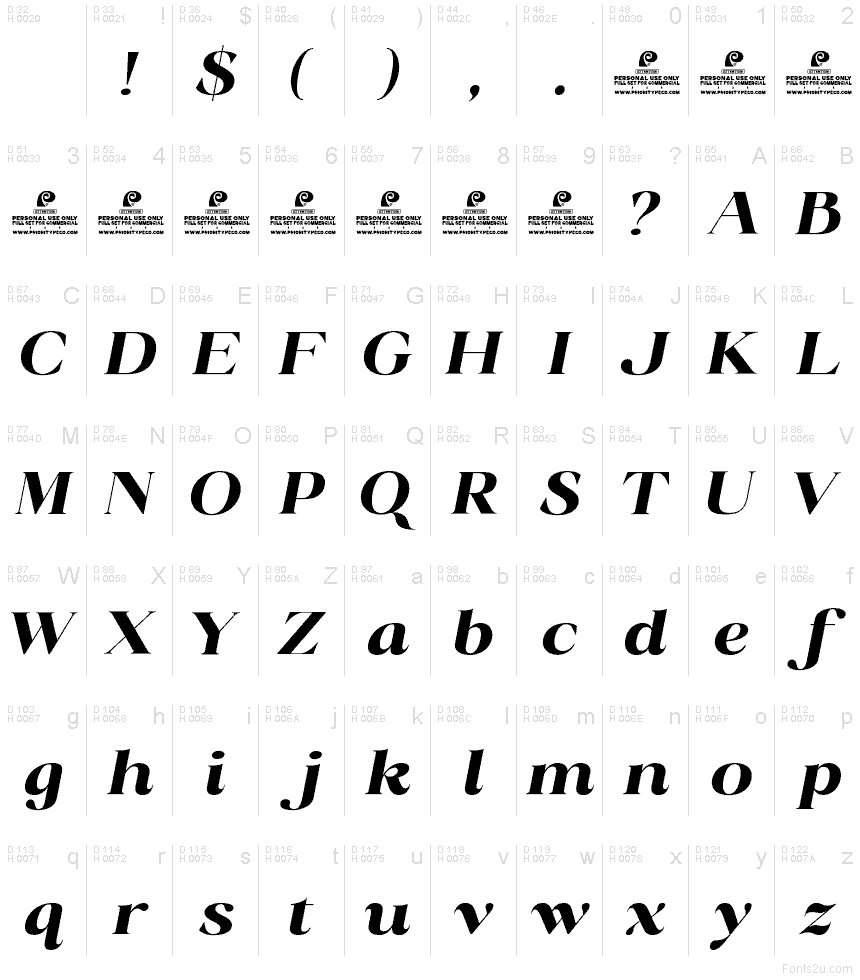
Radiant Charisma DEMO Bold Ita
Radiant Charisma Bold Italic font by Prioritype Co is an elegant serif free font with expanded letters. The bold and decorative design of the font draws all attention to the written words, giving them a luxurious, and sophisticated look. The italics further enhance this refined aesthetic making it a beautiful fusion of modern style and classic appeal.
Use Radiant Charisma Bold Italic for greeting cards, logo designs, magazine titles, branding, books covers, or packaging projects. Posters and flyers will look exponentially more attractive when decorated with this artistic typeface. All other print or digital projects where text should shine can benefit from using it as well.